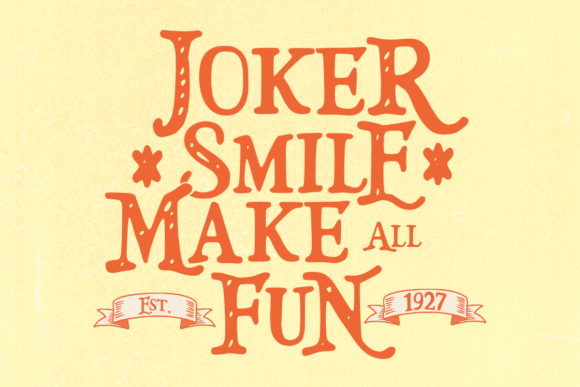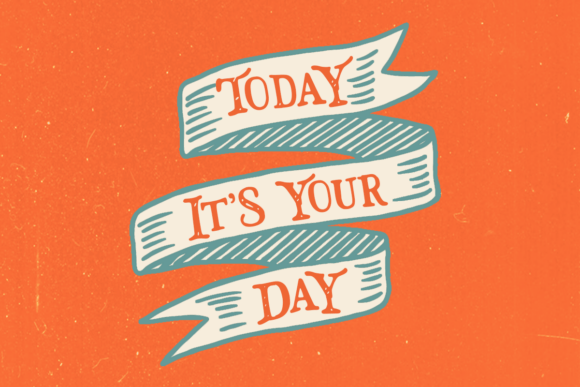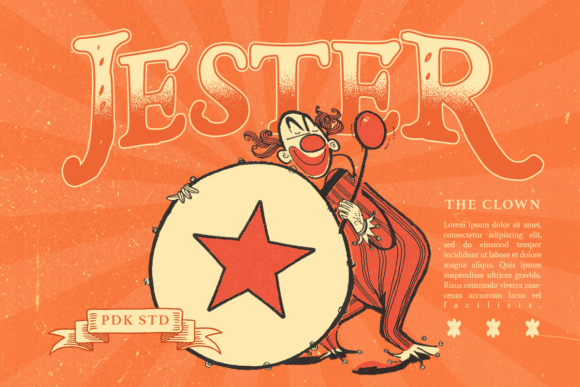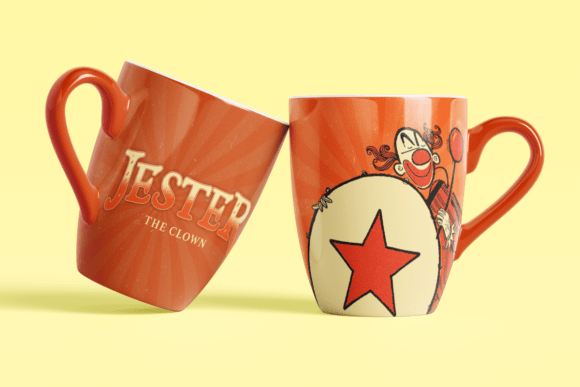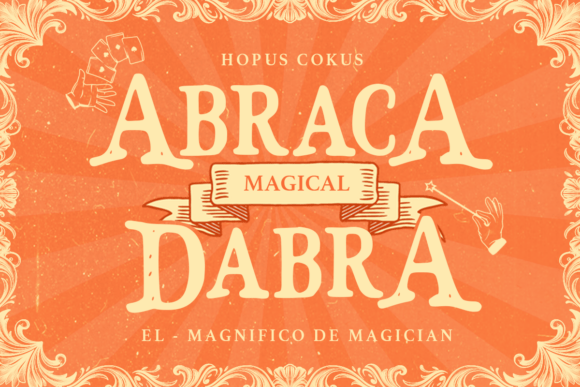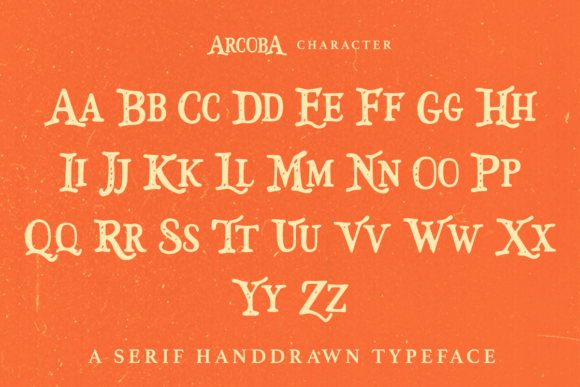
Arcoba Font: Bringing Whimsy to Your Designs
You know that moment when you’re brainstorming a new project and suddenly the perfect font pops into your head, instantly elevating the entire concept? For designers seeking to add a touch of magic to their work, that moment is now. Enter the enchanting Arcoba Font, a serif display typeface that embodies the essence of vintage carnival posters and theatrical lettering.
Arcoba Font is a masterful blend of bold outlines, decorative curves, and vibrant personality, making it the perfect addition to any design that needs a show-stopping twist. Whether you’re crafting headlines, posters, packaging, or branding for performers, events, games, or quirky product lines, Arcoba Font adds a dash of showbiz to any visual story.
- Unique Characteristics: Features a unique blend of modern and classic design elements, making it suitable for a wide range of applications, from corporate branding to editorial content.
Review of Arcoba Font
Overall, I’m quite impressed with Arcoba Font. Here’s what I think:
- The unique blend of modern and elegant styles creates a sophisticated look that’s perfect for premium brands.
- The extensive language support makes it a great choice for international clients.
- The font’s high legibility ensures that your message will be easily readable, even at smaller sizes.
- The font might feel a bit too formal for more casual projects, like blogs or social media.
- The font family is relatively small, which might limit your creative options.
Overall, I’d give Arcoba Font a solid 4 out of 5 stars. While it has some limitations, its unique style and high-quality design make it a great choice for the right projects. If you’re looking for a premium font to elevate your brand, Arcoba is definitely worth considering.
Getting the Most Out of Arcoba Font
For optimal results, use the Arcoba font in conjunction with clean and minimalist designs. This font is ideal for headings, titles, and short paragraphs. Experiment with different font sizes and styles to achieve a visually appealing effect.